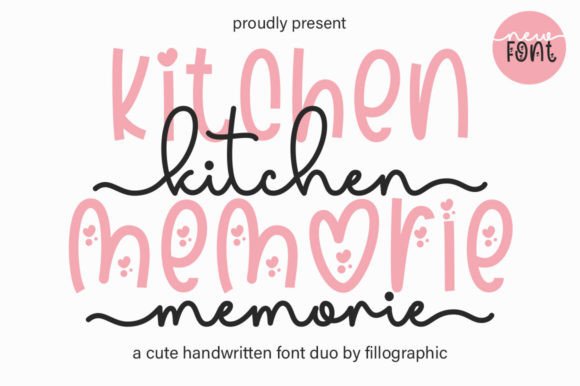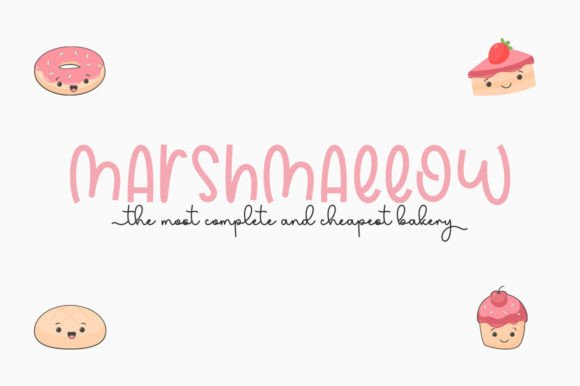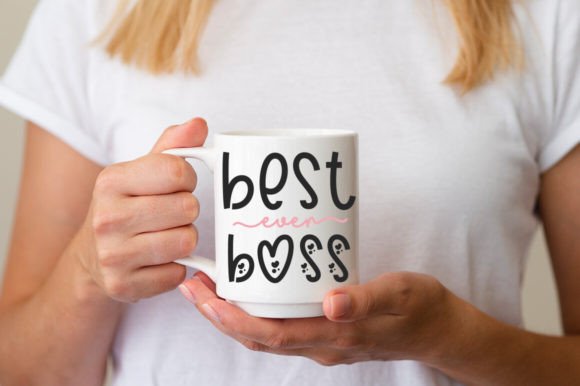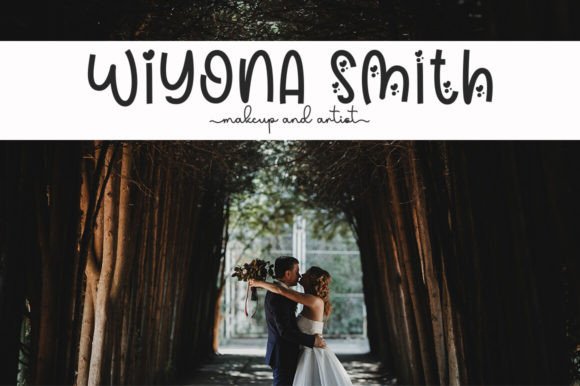
Kitchen Memorie Font: A Cute Handwritten Font for Cricut Crafts
About the Kitchen Memorie Font
Make a bold statement with Kitchen Memorie Font, a powerful and memorable font. Kitchen Memorie consists of two handwritten fonts designed to complement each other perfectly. Together or apart, these fonts are ideal for adding a chic and cheery touch to your crafts.
Kitchen Memorie excels in projects requiring a touch of handwritten charm. It’s perfectly suited for branding projects emphasizing artisanal food, handcrafted goods, or charming boutiques. Use it for logos, short headlines, packaging design, and social media graphics. Avoid using it for lengthy body text or UI elements; the informal nature may hinder readability.
Its playful yet sophisticated personality pairs well with clean sans-serif fonts like Montserrat or Lato for a balanced contrast. For a more elegant feel, consider pairing it with a delicate serif font such as Playfair Display or Merriweather. A script font like Great Vibes could add an extra layer of whimsy, though careful consideration of kerning is advised.
The overall personality is friendly and approachable, conveying a sense of warmth and handmade quality.
Kitchen Memorie Font Usage Examples
Kitchen Memorie Font Example